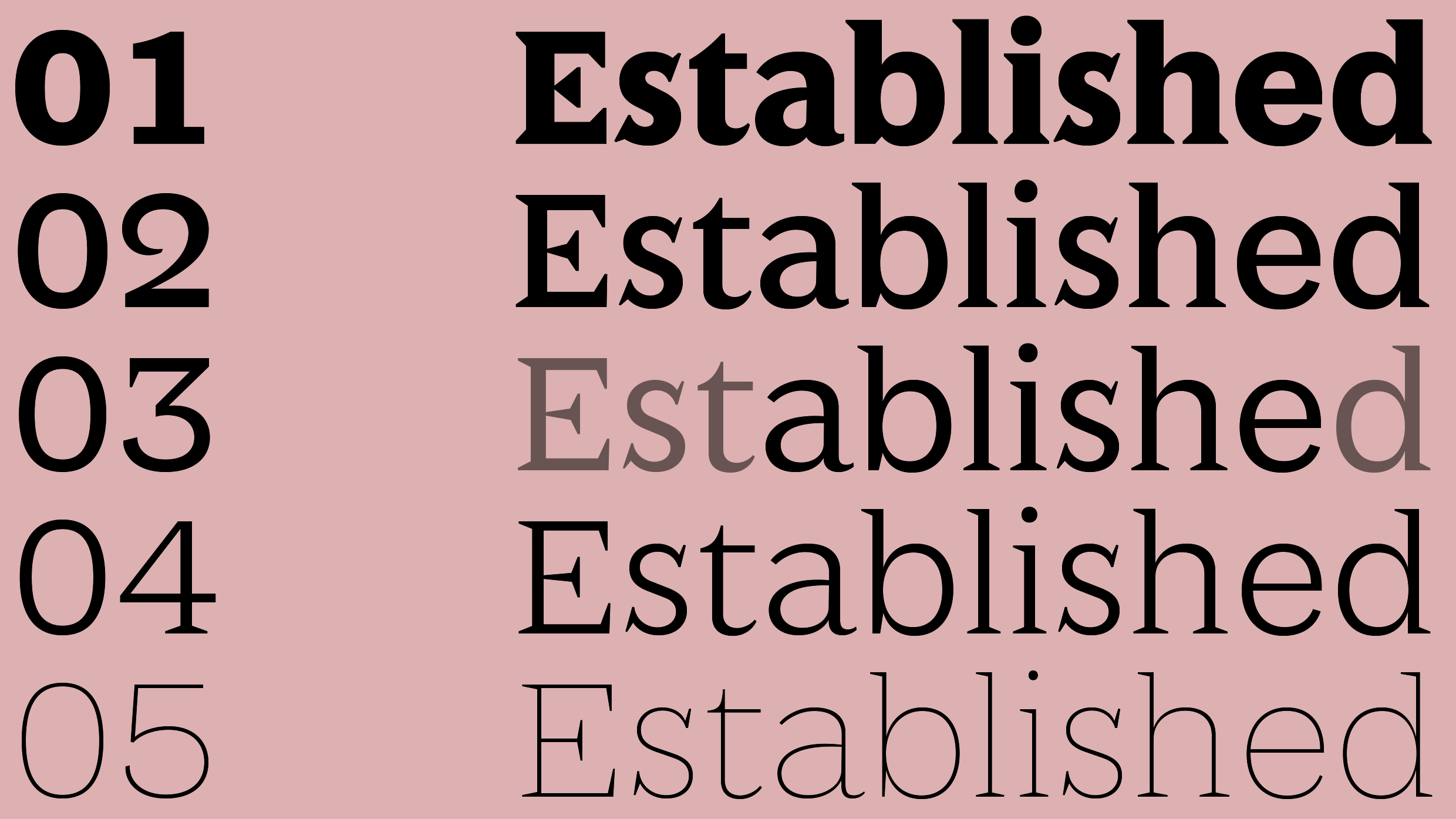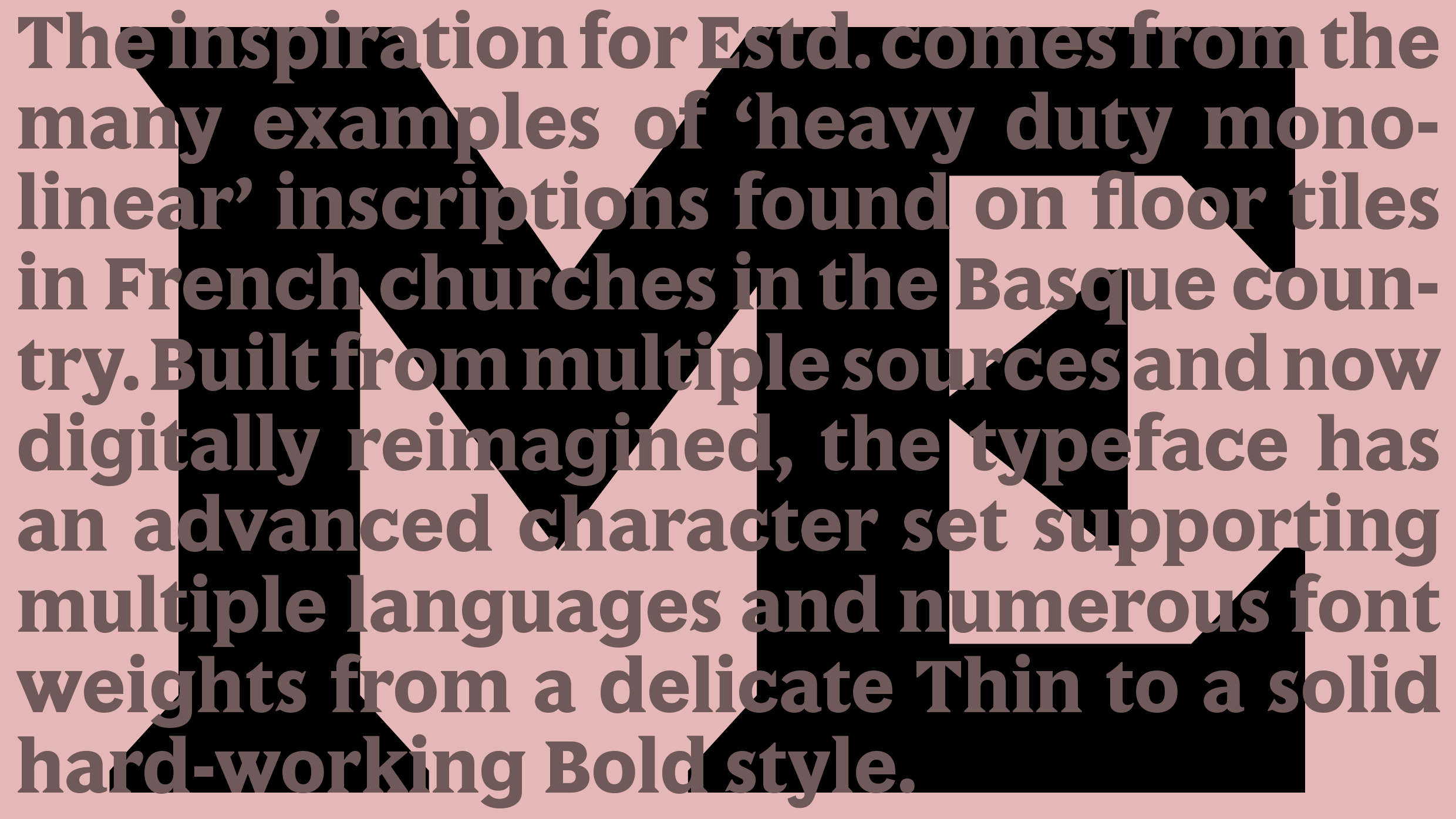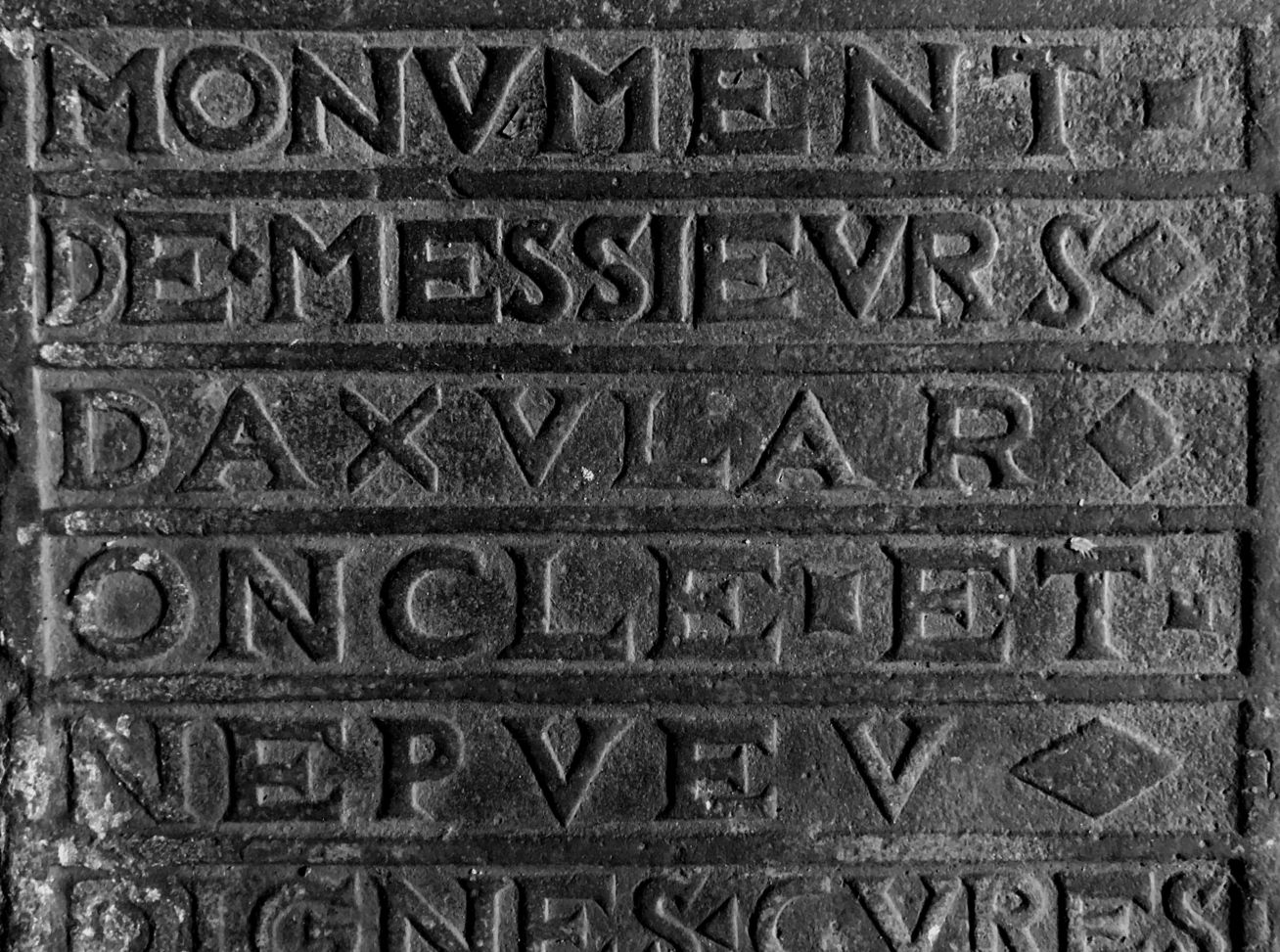
The inspiration for Estd. comes from the many examples of ‘heavy duty mono-linear’ inscriptions found on floor tiles in French churches in the Basque country. Built from multiple sources and now digitally reimagined, the typeface has an advanced character set supporting multiple languages and numerous font weights.
| Font name: | Estd. |
| Font category: | Serif |
| Styles: | Thin ExtraLight Light Regular Medium SemiBold Bold |
| Script: | Latin |
| Manufacturer: | A2-TYPE |
| Designer: | Henrik Kubel |